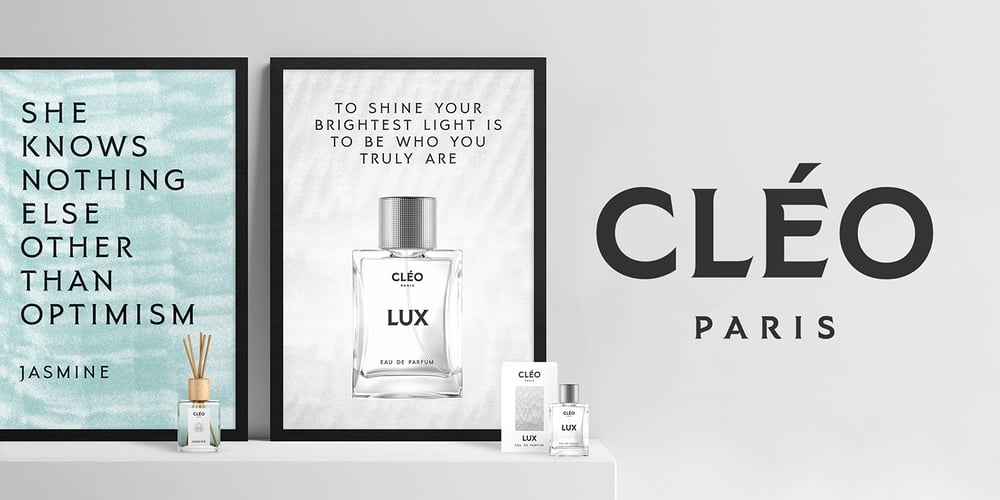
Caeli AT
Caeli AT font
Caeli AT Font Family was designed by Aaron Chiffers and published by Arctype. Caeli AT contains 2 styles and family package options. A typeface that invokes the beauty, strength and liberty of nature. Plant life is honoured with curves flowing from strong stems along with subtle references to Art Nouveau letter-shapes.